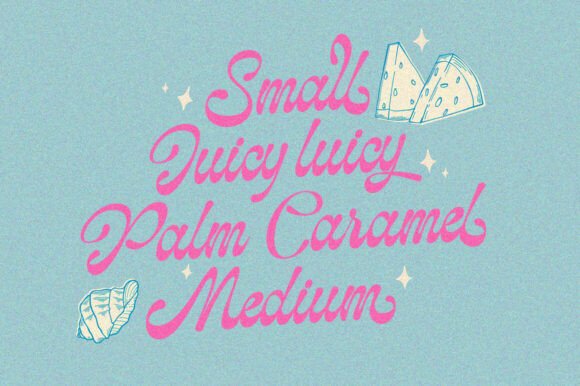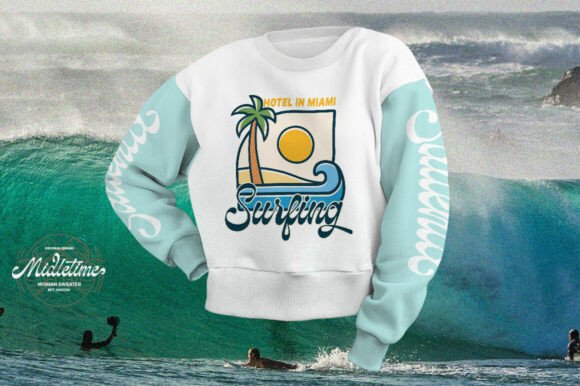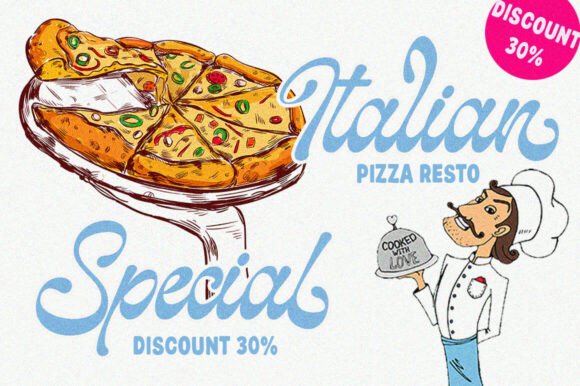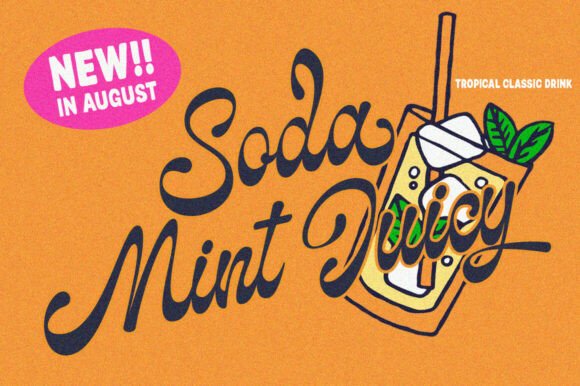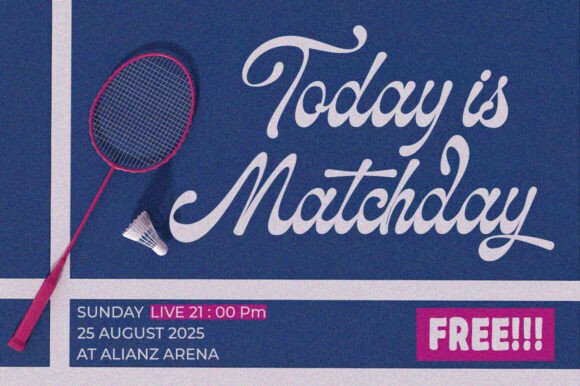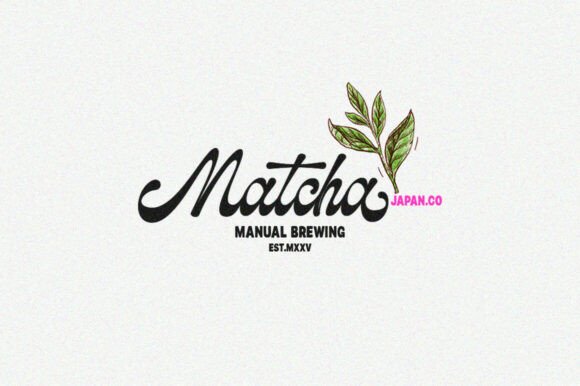
Introduction to Midletime Font Font
Fonts play a crucial role in design, and the Midletime Font font is a typeface that brings both character and versatility to any project. Whether you’re working on a branding project, a website, or a print design, the Midletime Font font offers a unique style that can elevate your work.
Midletime a professional script font with irregular thickness and slightly rounded edges, making the letters look different from regular script fonts.
With a unique typeface, this font leans slightly towards retro fonts and includes a shadow file This font is perfect for headlines, digital ads, magazines, websites, posters, brands, and logos.
Key Features of Midletime Font Font
Why Choose Midletime Font Font?
The Midletime Font font is more than just a typeface – it’s a design tool that helps you communicate your message with style and clarity. Its unique character set and versatile design make it suitable for a wide range of applications, from elegant invitations to bold headlines.
With its carefully crafted letterforms and balanced proportions, the Midletime Font font ensures readability and visual appeal across all mediums.
What makes Midletime Font font special?
The Midletime Font font stands out with its unique design, exceptional readability, and versatility across various design applications.